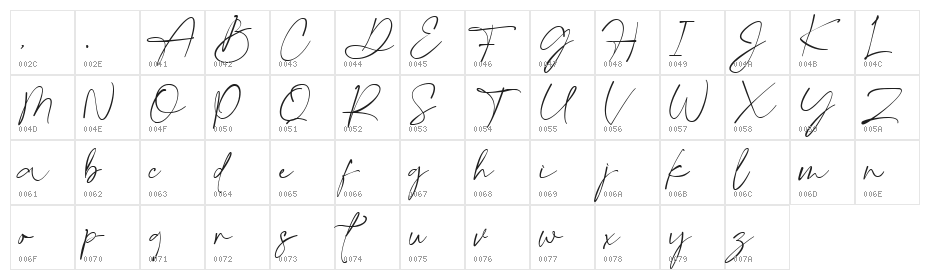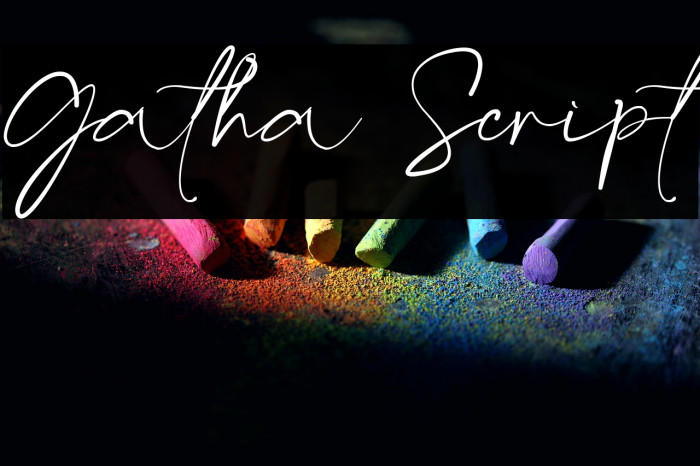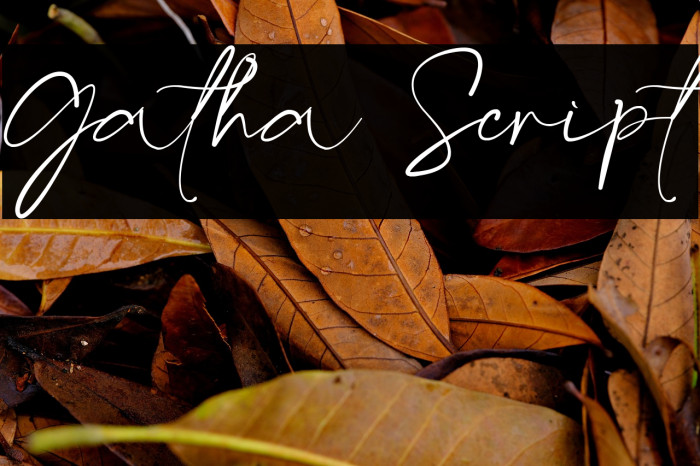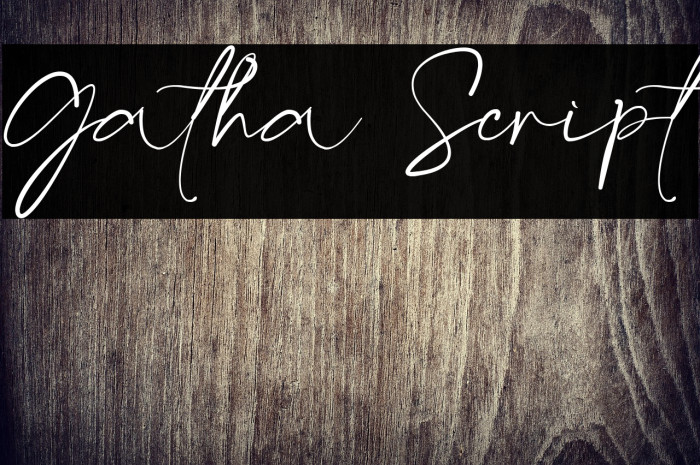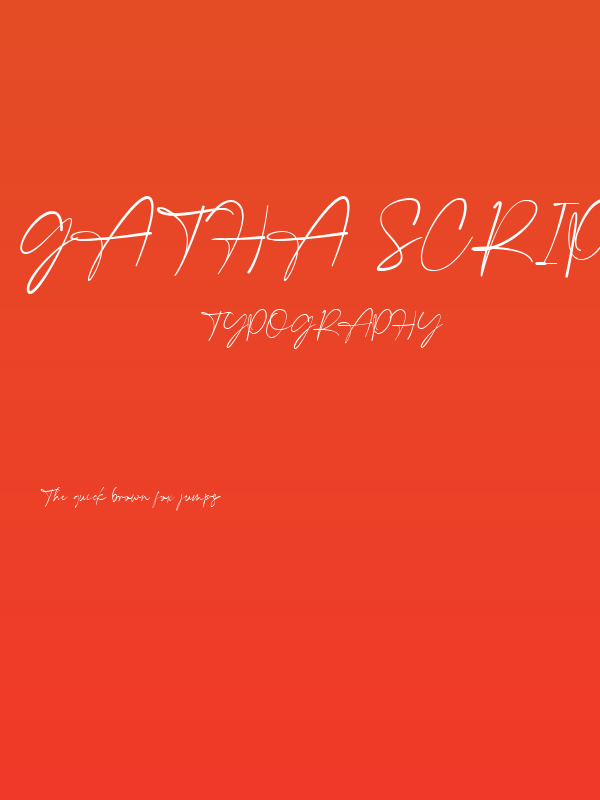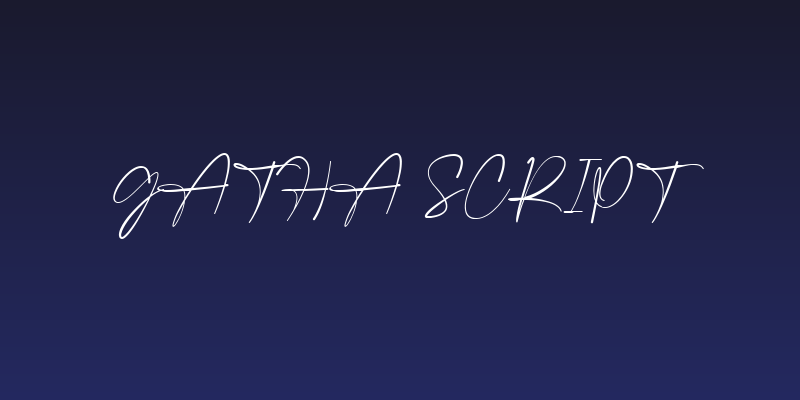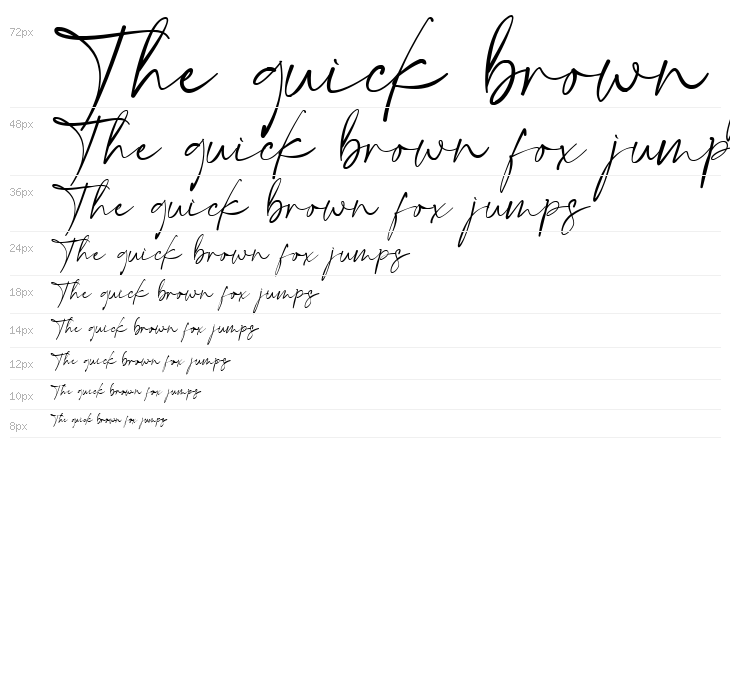
Gatha Script Font
Gatha Script Description
This font exudes a graceful and fluid style, characterized by its elegant script form. The letters are connected in a flowing manner, reminiscent of traditional calligraphy. The uppercase letters maintain a consistent height, while the lowercase letters vary in size, adding a dynamic and artistic flair. The strokes are smooth and continuous, with some letters featuring loops and swirls that enhance its decorative appeal. This font is perfect for projects that require a touch of sophistication and elegance, such as wedding invitations, greeting cards, and branding materials. Its artistic nature makes it suitable for creative and expressive designs.
| Overall Style | Elegant and Artistic |
| Use Case | Logos, Invitations, Decorative Text |
| Proposed Projects | Ideal for wedding invitations, greeting cards, branding, and artistic designs. |